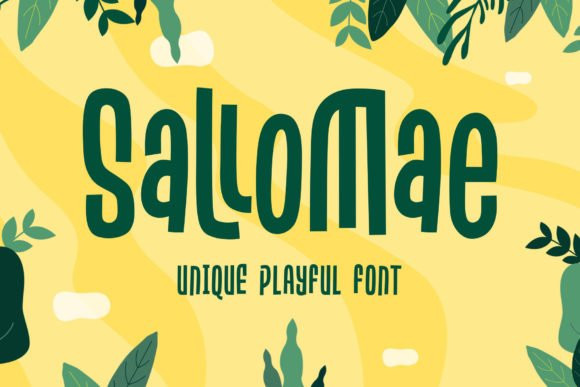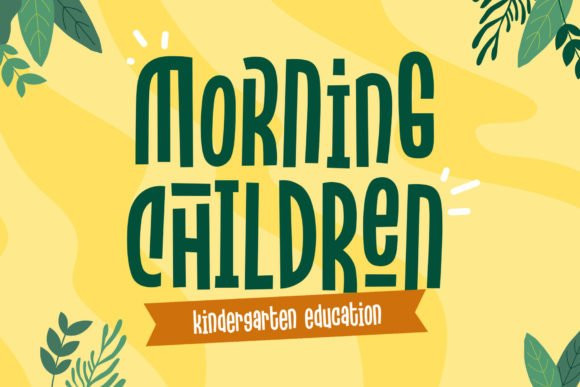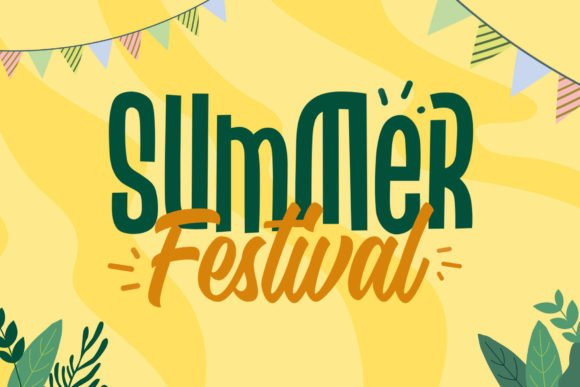
Sallomae Font
Sallomae FontSallomae is a cool display font. This font is PUA encoded which means you can access all of the glyphs and swashes with ease!
Sallomae is imposing and features uniquely shaped letters, and as a result, it will easily match a wide range of creations that require a distinct touch.